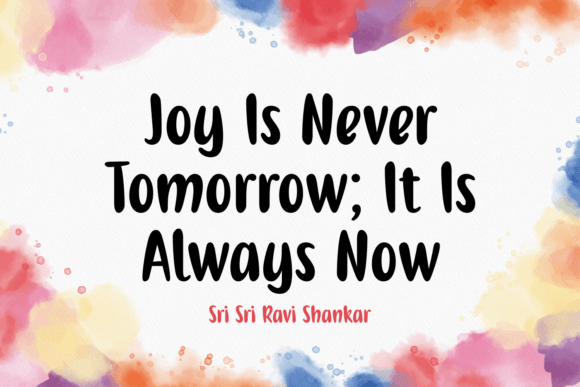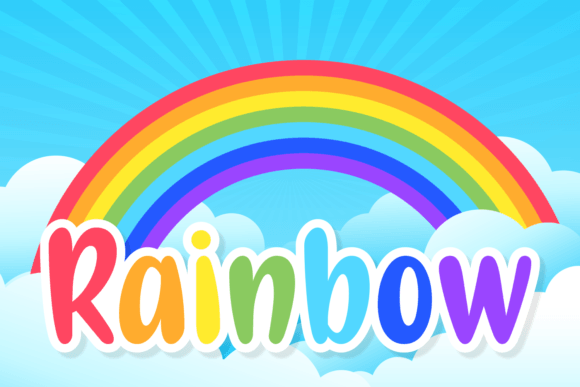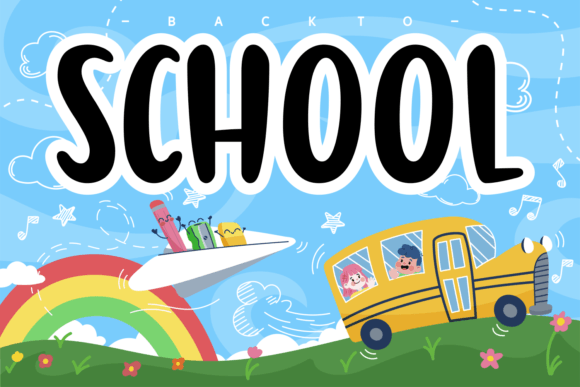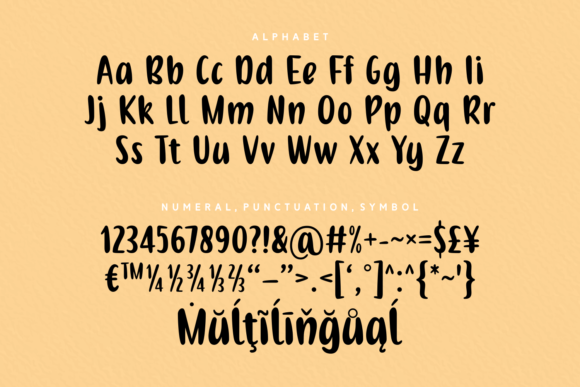
Unleash Your Creativity with the Awesome Rainbows Font
Remember the moment when you were a child, gazing out the window during a rainstorm, mesmerized by the vibrant colors of a rainbow stretching across the sky? For designers, that same feeling of wonder and magic can be captured with the perfect font – Awesome Rainbows Font. This delightful typography is designed to bring joy and excitement to your creative projects.
With its rounded corners and chubby bold looks, Awesome Rainbows Font is perfect for adding a playful touch to posters, game titles, cartoon movies, credit titles, magazines, and more. Its versatility makes it a valuable asset for designers looking to add a pop of color and whimsy to their work. Whether you’re working on a personal project or a commercial venture, Awesome Rainbows Font is sure to bring a smile to your audience’s faces.
- Unique Characteristic: The font features a dynamic, rainbow-colored effect that changes with every letter, creating a visually striking and eye-catching appearance.
Awesome Rainbows Font Review
Overall, I think Awesome Rainbows Font is a fun and playful font that could work well for certain projects, especially those with a whimsical or youthful vibe.
- The font’s bold and vibrant colors can add a lot of visual interest to a design.
- The irregular shapes and lines can help create a hand-drawn or artistic feel.
- The font is highly customizable, making it easy to adjust the colors and styles to fit your design needs.
- The font may not be suitable for serious or formal projects, as it can come across as too playful or childish.
- The bold colors and irregular shapes can make the font difficult to read at small sizes or in low-light environments.
- The font’s customizability can also make it difficult to achieve a consistent look across different elements of a design.
While Awesome Rainbows Font is a fun and creative font, it may not be the best choice for every project. It’s best suited for designs that require a playful, whimsical feel, and where the font’s customizability is a plus.
The Awesome Rainbows Font is ideal for:
– Creating eye-catching headings and titles.
– Designing colorful and playful graphics.
– Adding a touch of whimsy to your designs.
– Creating a fun and engaging atmosphere in presentations and documents.
What is the character set of the Awesome Rainbows Font?
The Awesome Rainbows Font includes a wide range of characters, including uppercase and lowercase letters, numbers, punctuation marks, and special characters. It also includes support for various languages, including English, Spanish, French, and more. The font’s character set is based on the Unicode Standard, ensuring compatibility with a wide range of applications and operating systems.